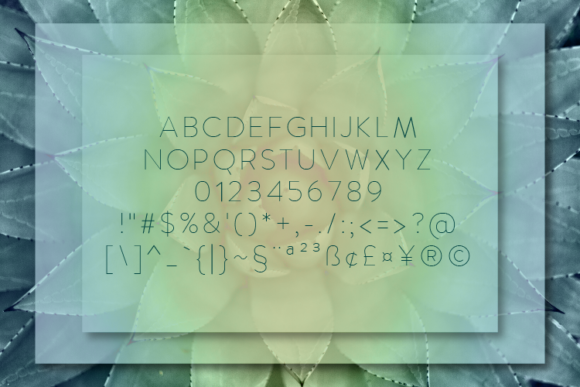
Introduction to Manolo Thin Font
Have you ever stared at a blank page, wondering how to bring your creative project to life? We’ve all been there, searching for the perfect font to set the tone for our design. It’s that moment when the right font can make all the difference. For designers, finding the ideal font can be a game-changer, elevating our work from good to great.
That’s where the Manolo Thin Font comes in – a high-quality, versatile font that’s perfect for a wide range of creative projects. With its simple sans serif design, this font is well-suited for branding, websites, photos, titles, and quotes, among other uses. Its elegant and classy feel makes it an excellent choice for designers looking to add a touch of sophistication to their work.
Key Features of Manolo Thin Font
- High-quality font design for creative projects, available for free download as a design resource.
- Thin font style with a transparent background, ideal for use in digital art and graphic design.
- Unique characteristics: elegant and sophisticated design, perfect for use in fashion, beauty, and luxury branding.
- Perfect for use in digital art, graphic design, and print materials, including business cards, brochures, and websites.
Honest Review: Manolo Thin Font
I recently had the chance to work with the Manolo Thin Font, and I must say, it’s a high-quality design resource that can elevate any creative project. ✨ One of the standout features of this font is its versatility – it can be used for a variety of projects, from branding to editorial content.
- Great for branding, editorial content, and more
- May not be suitable for very large-scale projects
- Some users may find the font too thin for certain applications
- Not ideal for projects that require a bold, eye-catching font
Overall, I’m impressed with the Manolo Thin Font. It’s a great addition to any designer’s toolkit, and I would definitely recommend it for creative projects that require a high level of sophistication and elegance. ⚠️ Just be mindful of the limitations mentioned above, and you’ll be all set for a successful project.
Getting the Most Out of Manolo Thin Font
For optimal results, use the Manolo Thin Font in conjunction with high-quality images and graphics. Experiment with different font sizes, colors, and styles to create a unique and visually appealing design.
The Manolo Thin Font is ideal for creating elegant and sophisticated designs, such as invitation templates, wedding stationery, and branding materials. Its transparent background makes it perfect for overlaying on images or videos.
Alternatives to Manolo Thin Font
1. Montserrat Thin Font
Montserrat Thin is a sleek and modern sans-serif font perfect for high-quality design projects. Its clean lines and minimalist aesthetic make it ideal for creative projects that require a touch of sophistication. When to use: Headlines, titles, and body text in modern and minimalist designs. It compares to Manolo Thin Font by offering a similar level of sophistication, but with a more geometric and urban feel.
No, the Manolo Thin Font is not available with a transparent background. However, the font’s design is clean and minimalist, making it easy to use in designs with a transparent background or overlaying other design elements.